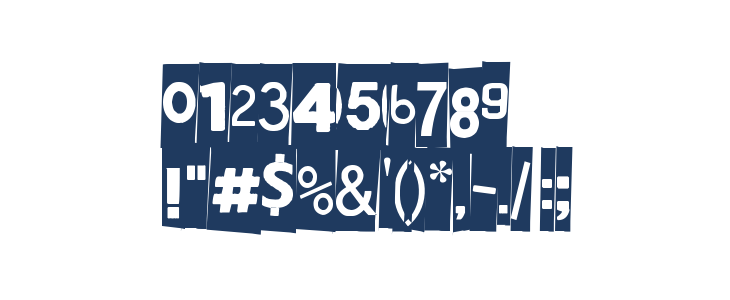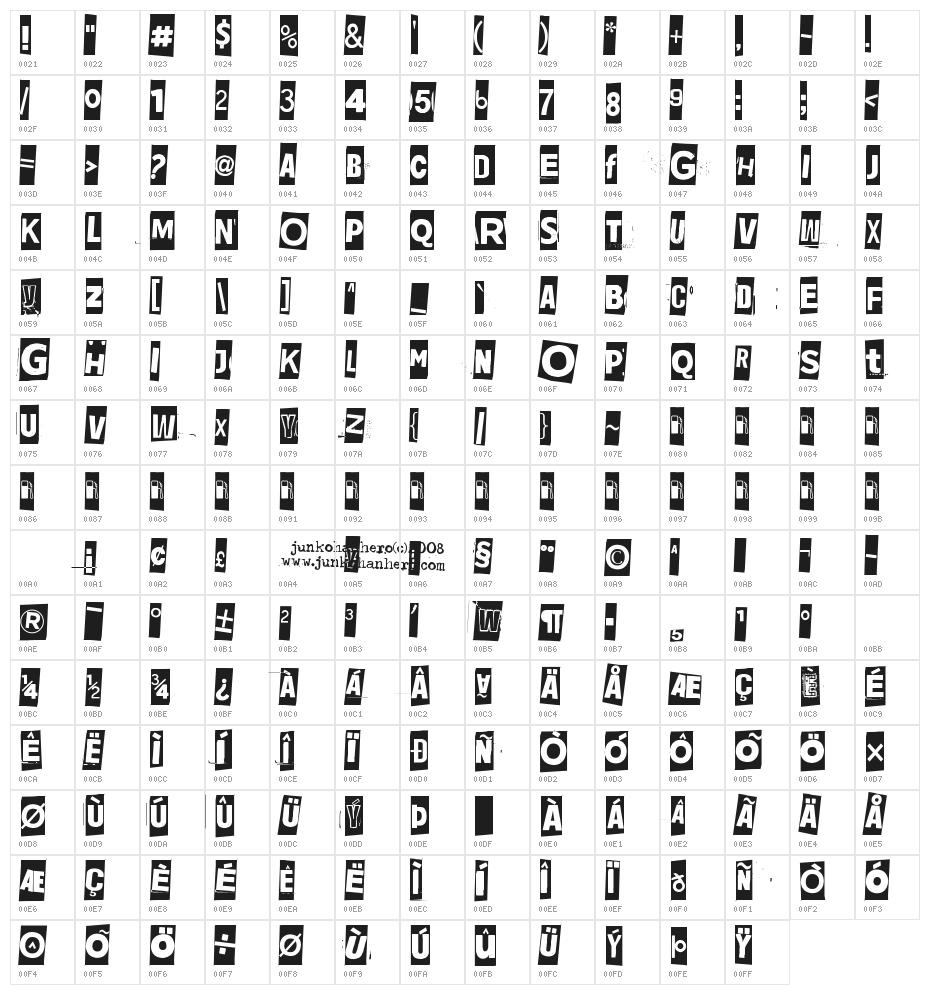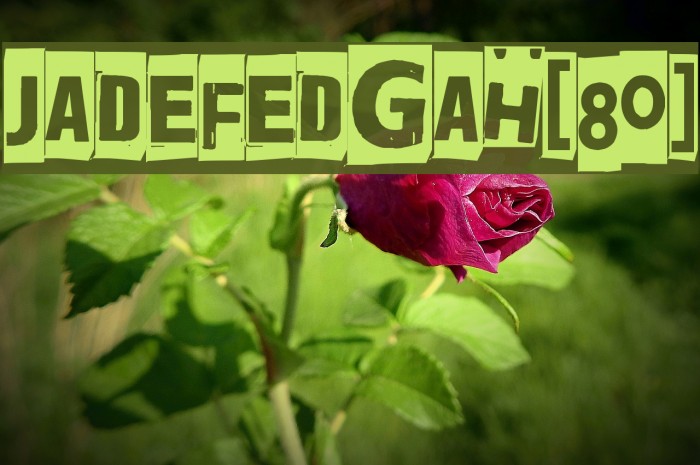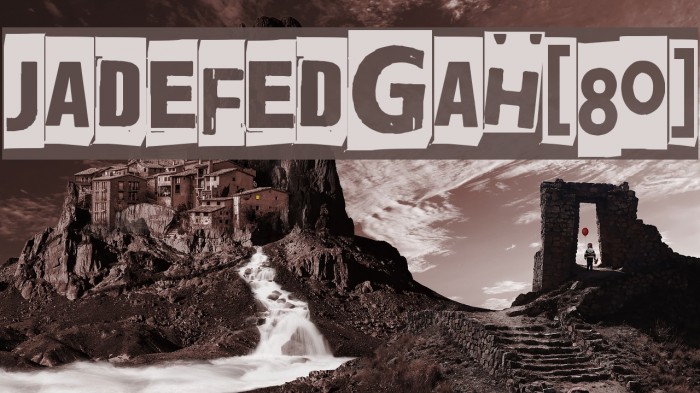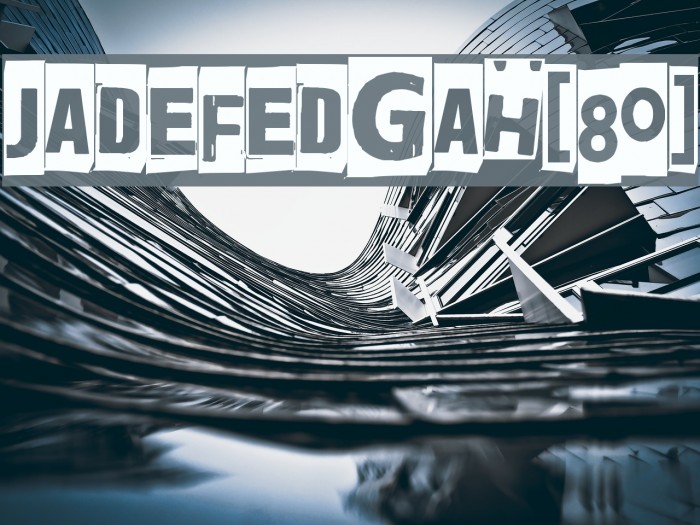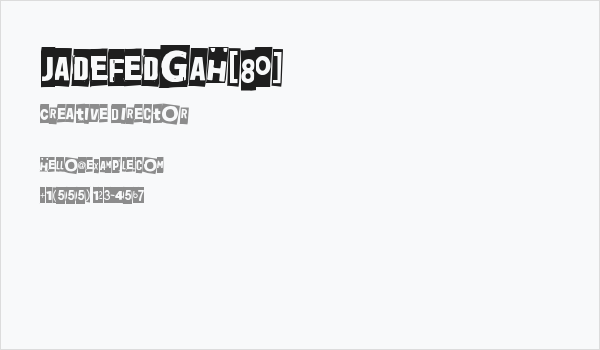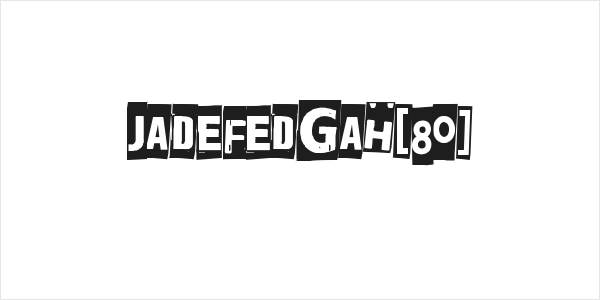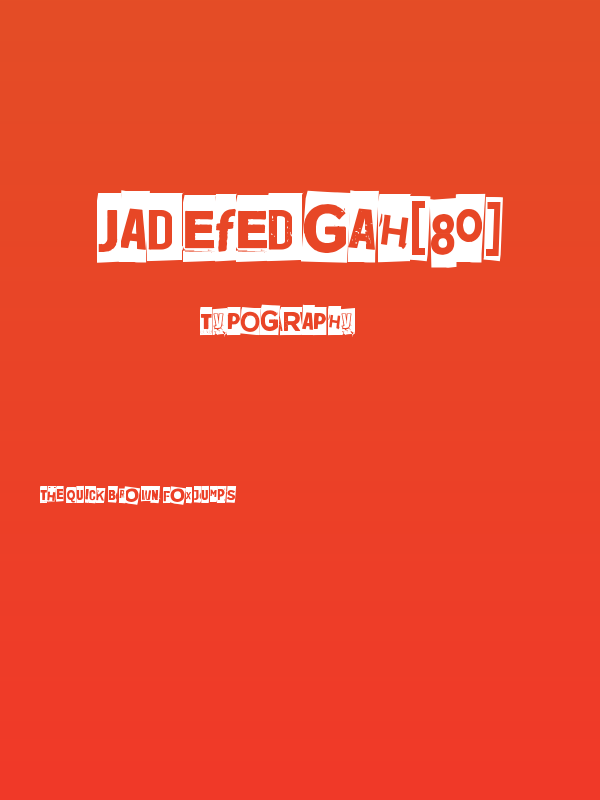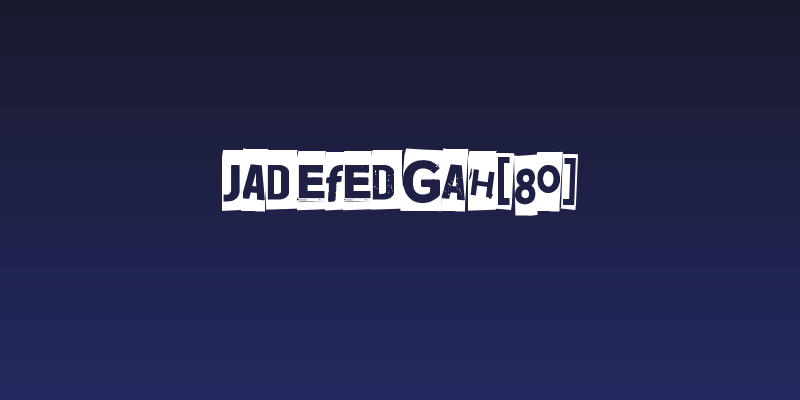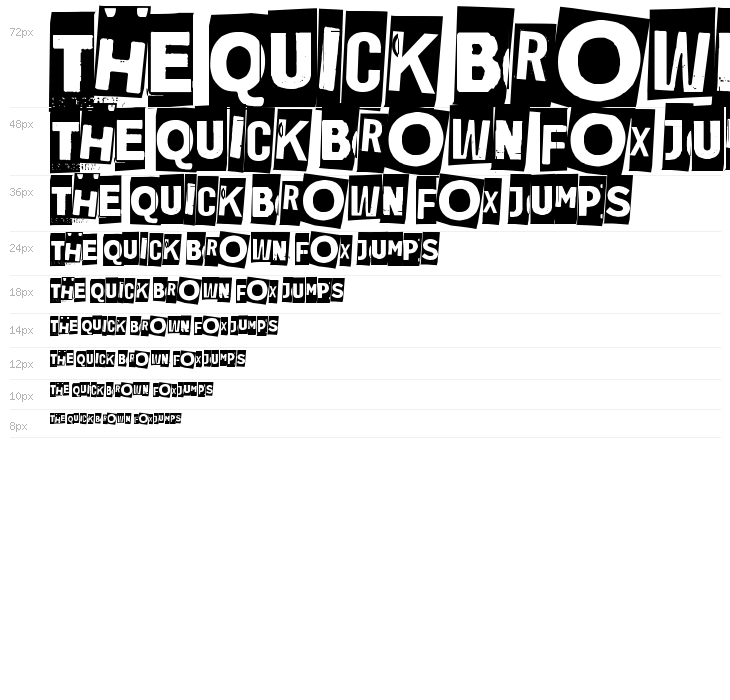
Jadefedgah[80] Font
Jadefedgah[80] Description
This font is a bold and expressive display typeface that mimics the style of cut-out letters from magazines or newspapers. Each character is uniquely designed with rough edges and varying sizes, creating a chaotic yet artistic look. The uppercase and lowercase letters, along with numbers and special characters, are all distinct, adding to the eclectic feel. The font's irregularity and high contrast make it stand out, perfect for projects that require a strong visual impact.
| Proposed Projects | Ideal for use in posters, album covers, magazine headlines, and any project needing a bold, artistic touch. |